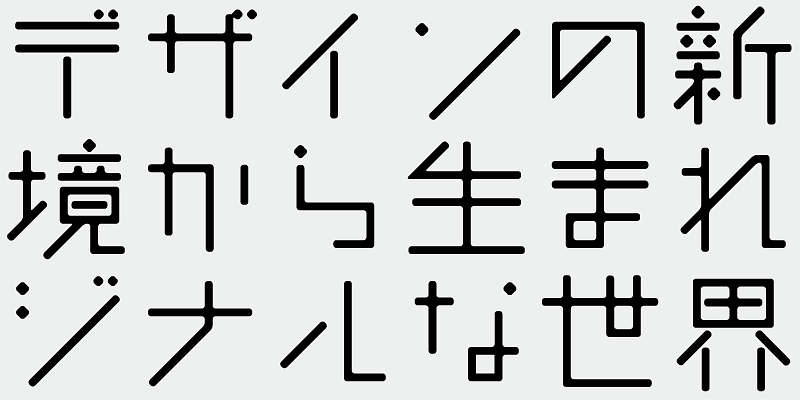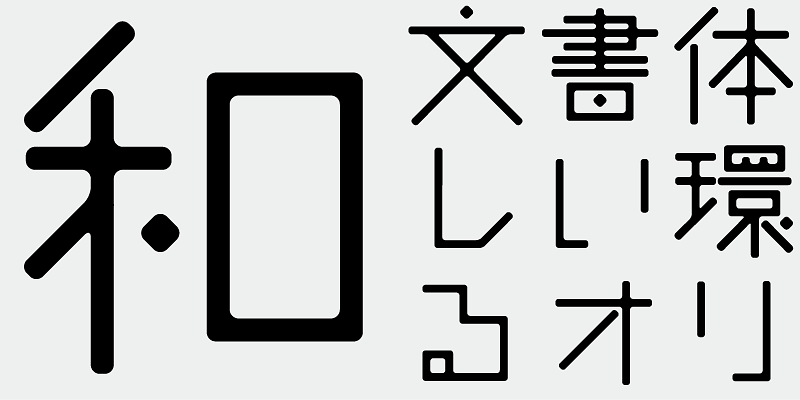
Made from lines and dots in four directions—this is Kakashi-kun, who doesn’t stand on just one leg.
This font includes the top 1,000 kanji selected from usage frequency lists compiled by newspaper companies, publishers, and the National Institute for Japanese Language and Linguistics, along with 206 kana characters, alphanumeric characters, and a carefully selected set of typographic symbols.